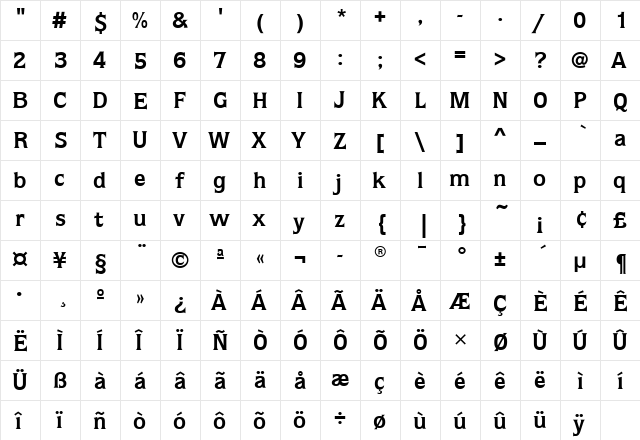
QuorumBookITC Bold
Design Context for QuorumBookITC Typeface
QuorumBookITC is a composed and adaptable typeface that performs quietly and consistently across a wide range of design contexts. The heavy weight commands attention and anchors typographic hierarchies.
Pro Tip: Use QuorumBookITC in both headline and body roles to test its range before committing to a single application.